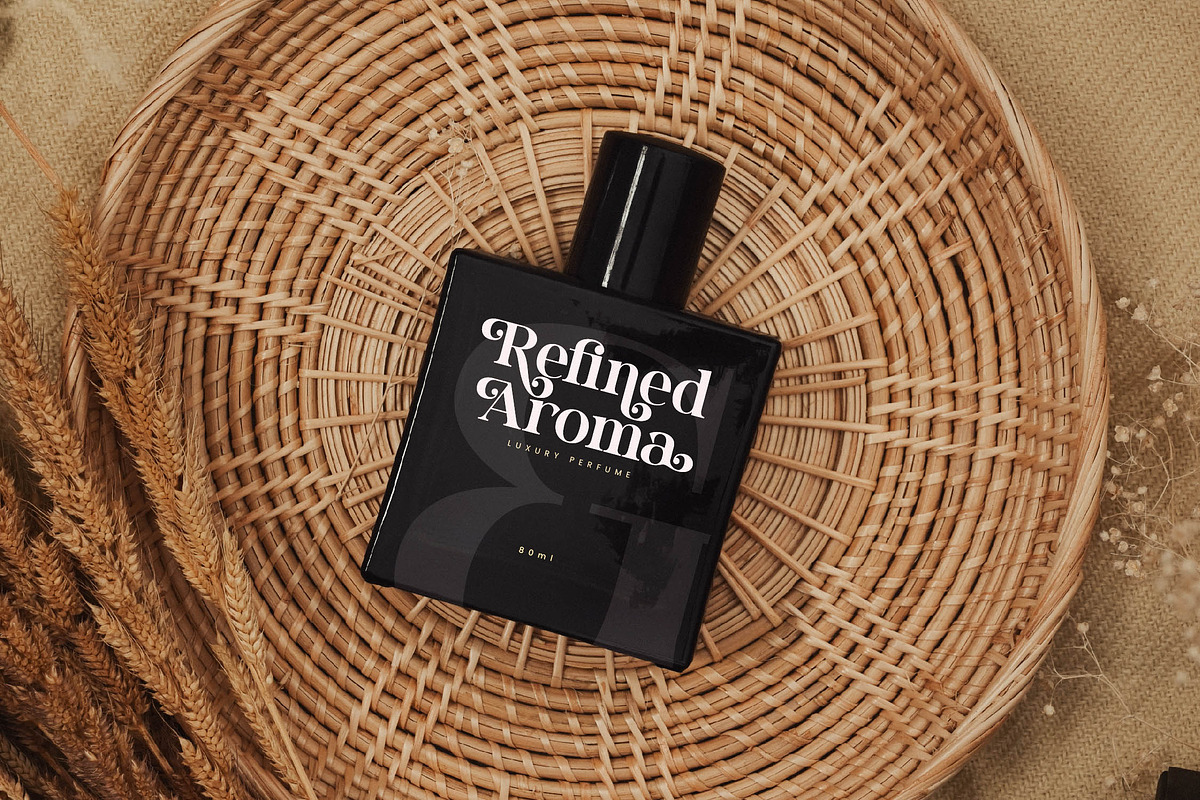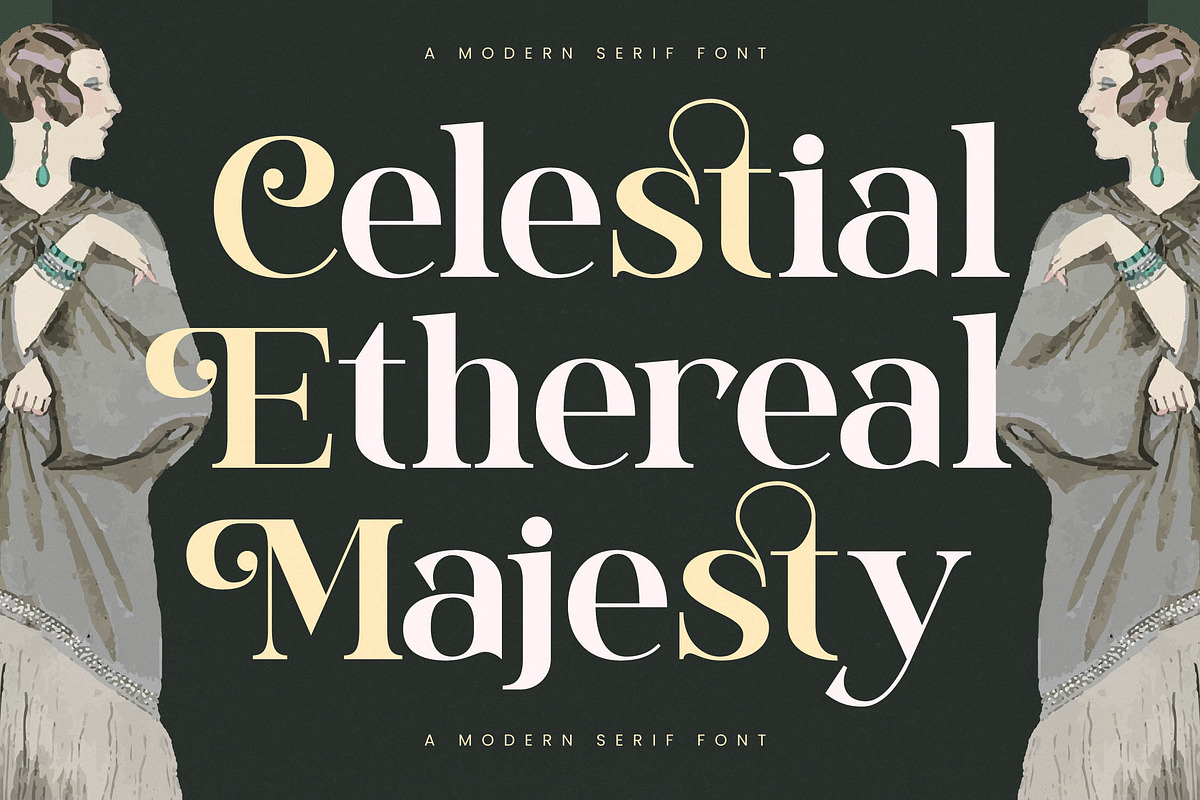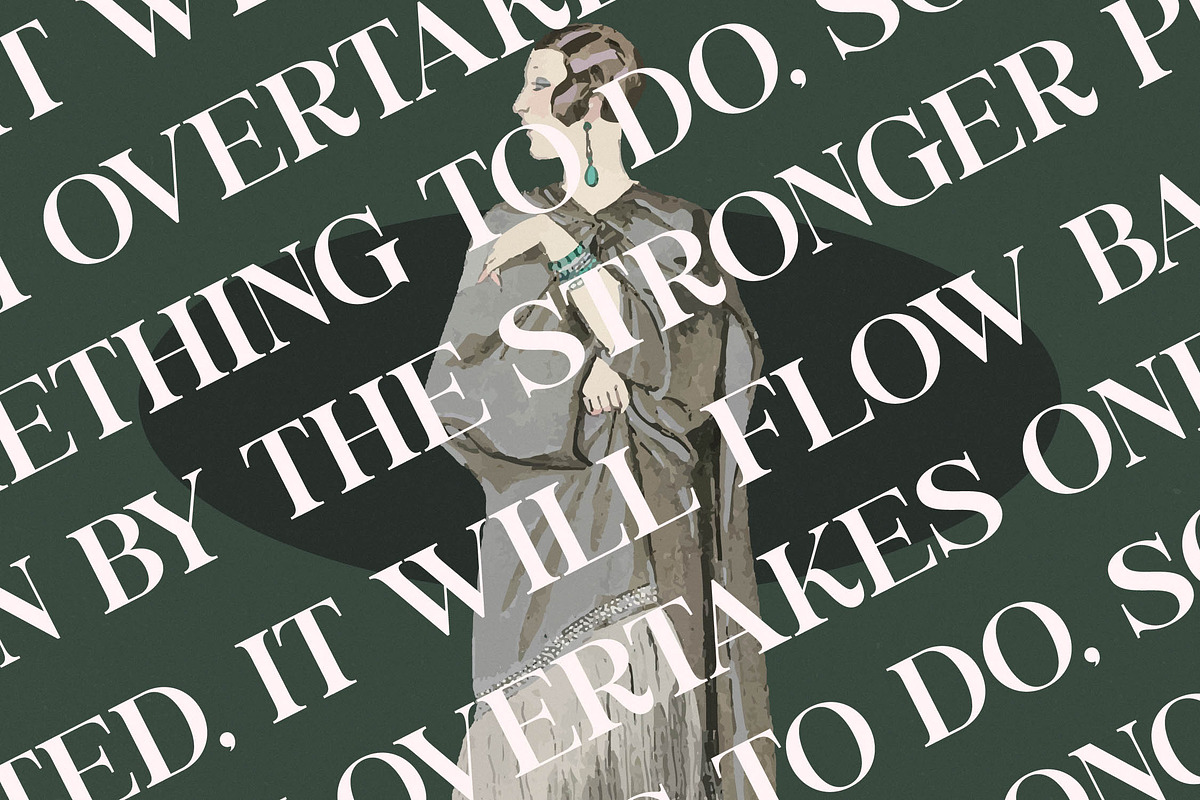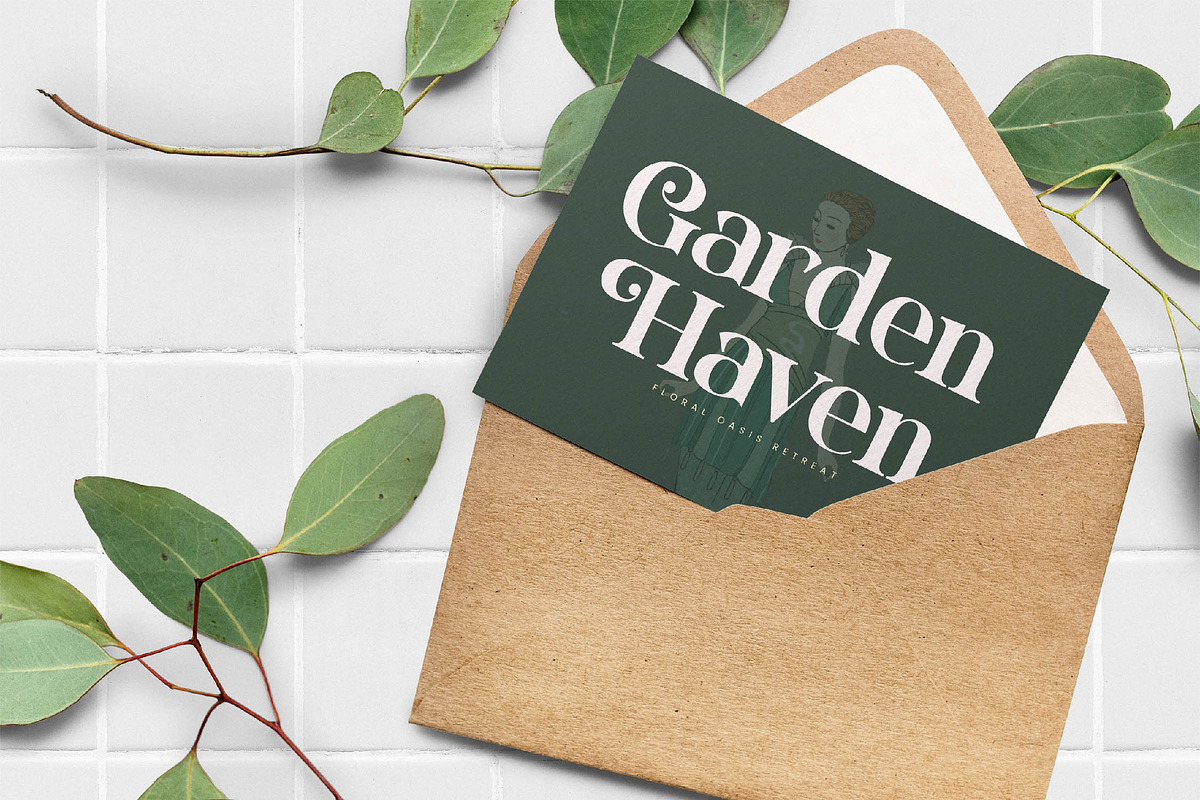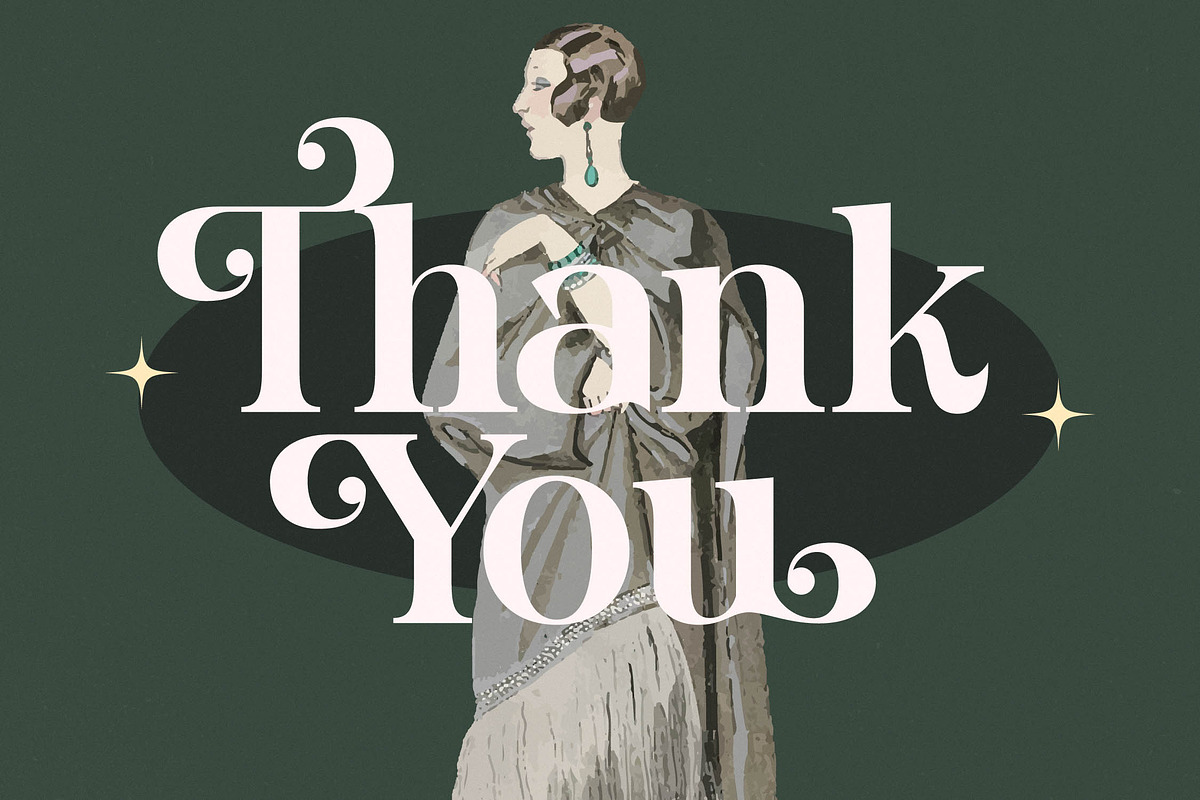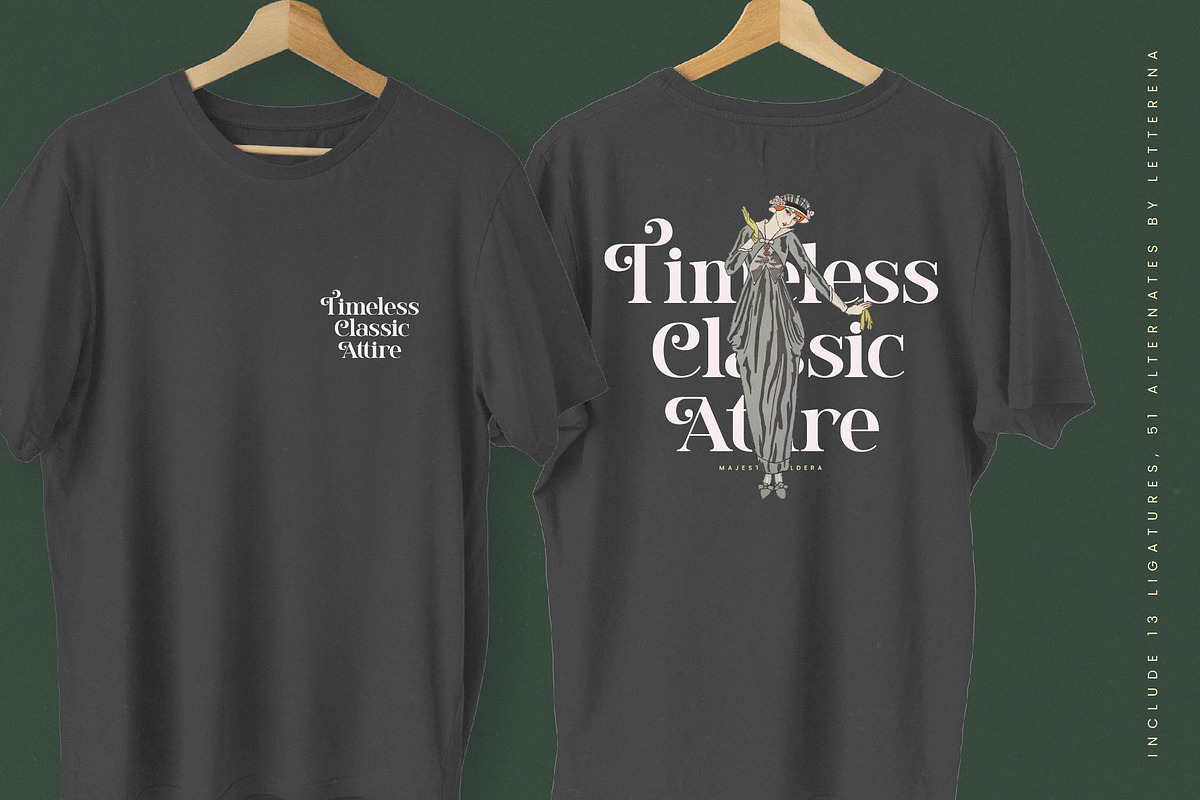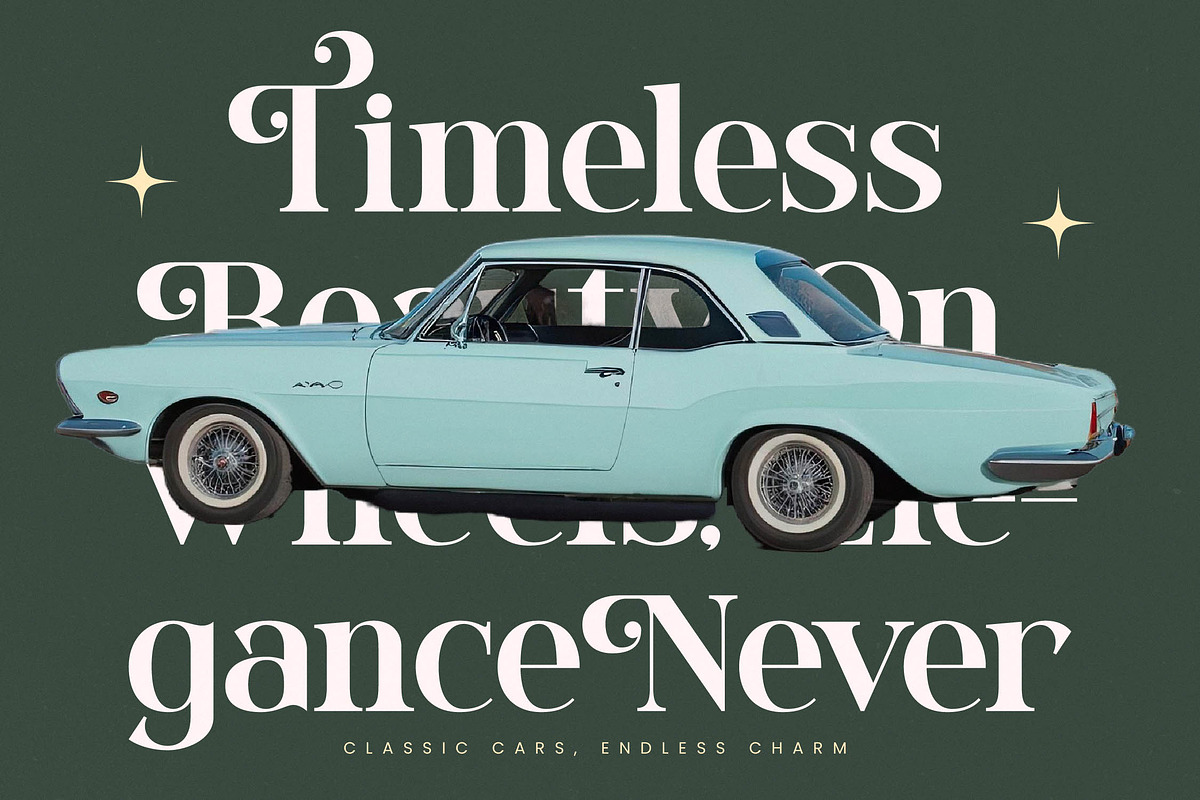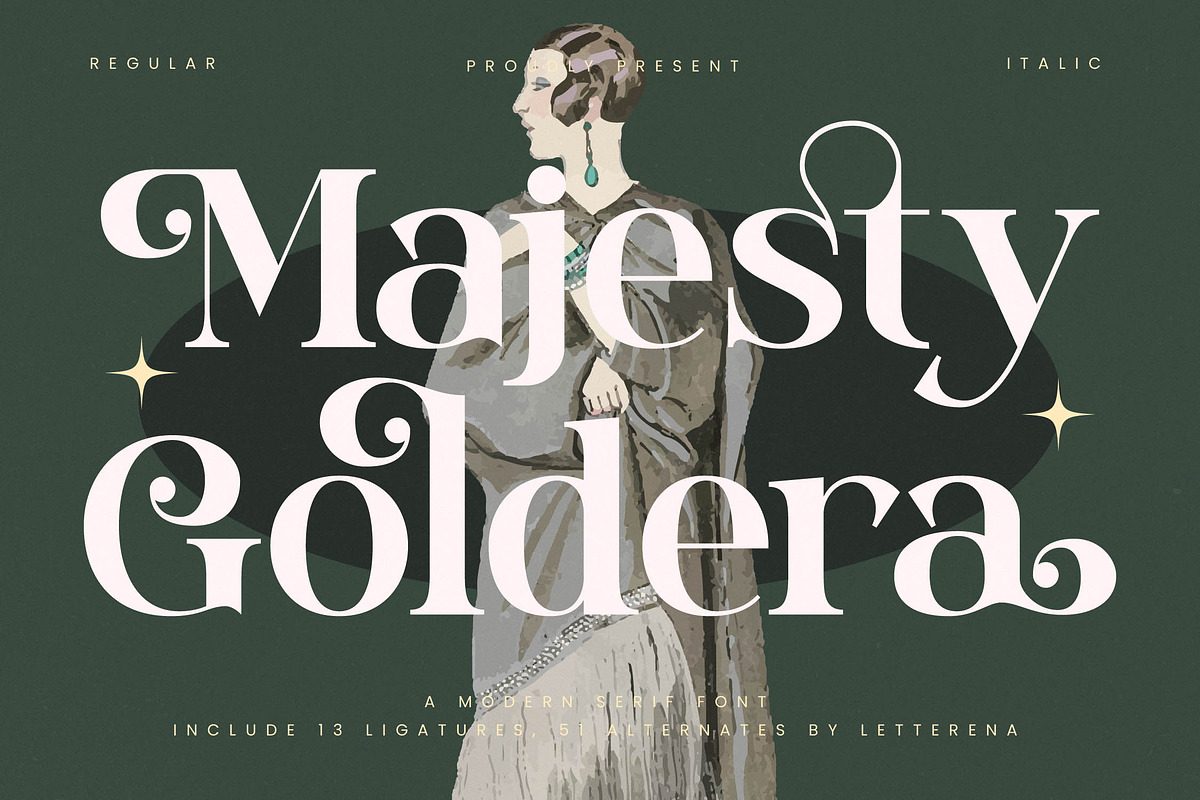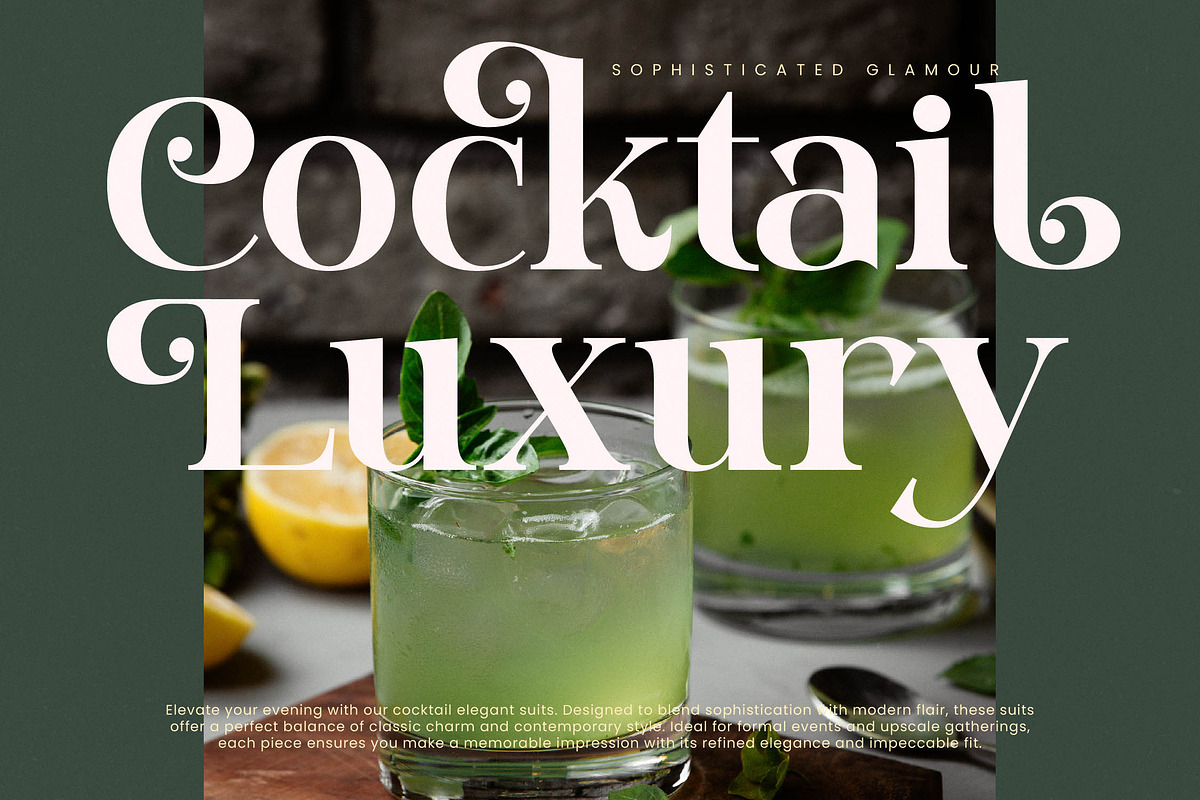
Majesty Goldera Modern Serif Font
Majesty Goldera – Modern Serif Font , from Letterena, is a Luxury Serif font, suitable for any projects such as: logos, branding projects, homeware designs, product packaging, mugs, quotes, posters, shopping bags, t-shirts, book covers, name card, invitation cards, greeting cards, label, photography, watermark, special events, and all your other luxury and beautiful projects that need a Luxury Serif taste.